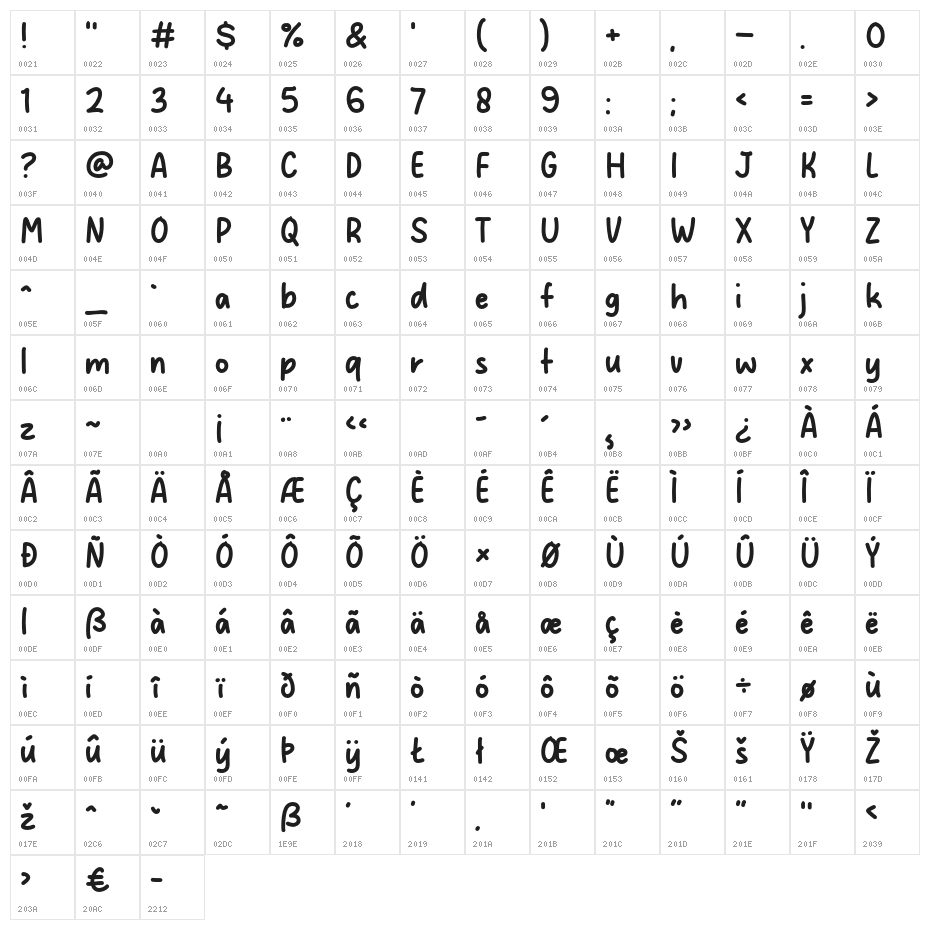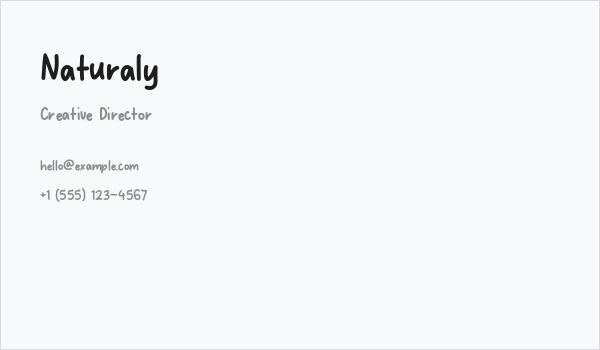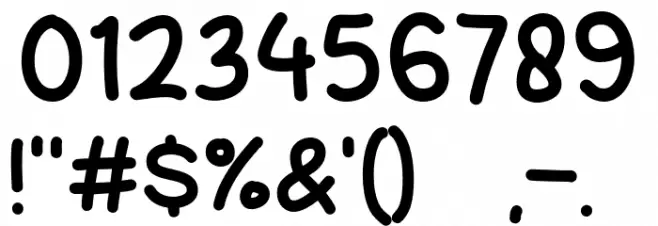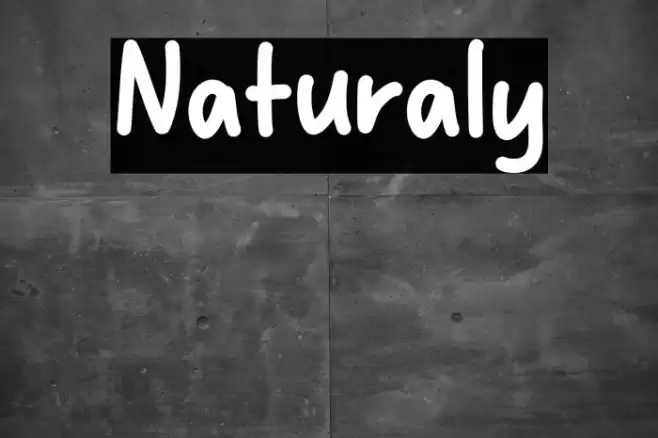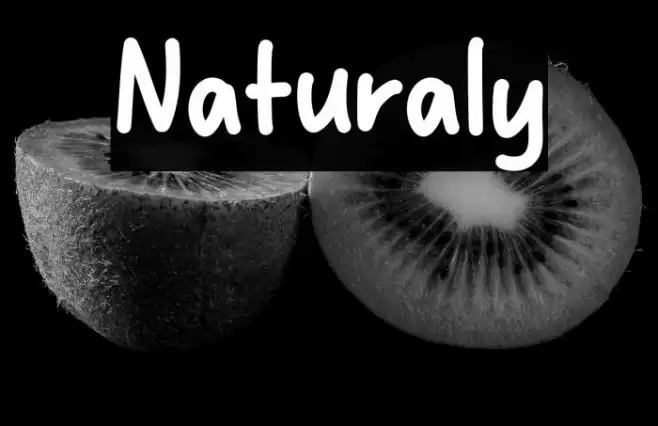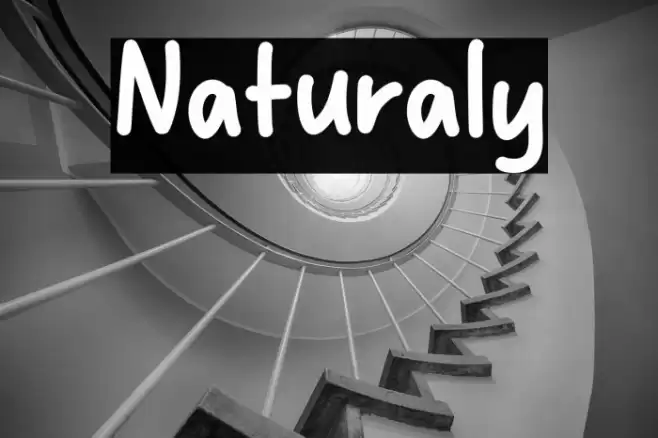
Naturaly Font
Naturaly Description
This font features a playful and casual handwritten style, characterized by rounded edges and a consistent stroke width. The letters are slightly irregular, giving it a natural and organic feel. The uppercase and lowercase letters maintain a friendly and approachable appearance, making it suitable for informal and creative projects. The numbers and special characters are designed to match the overall style, ensuring a cohesive look across all text elements. Its simplicity and charm make it versatile for various design applications.
| Proposed Projects | Ideal for greeting cards, children's books, casual branding, and social media graphics. |